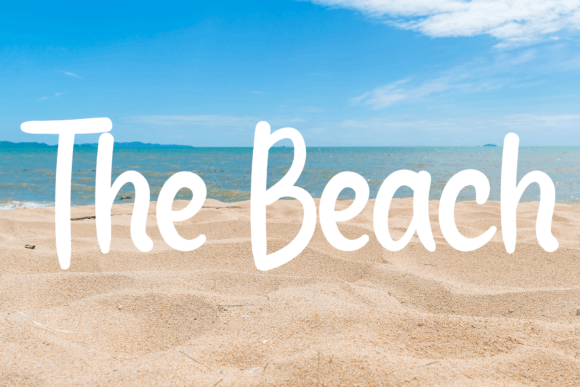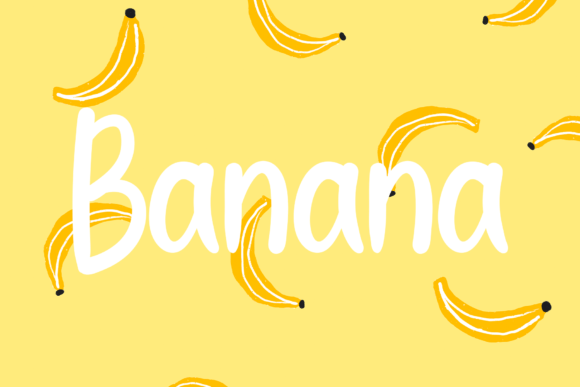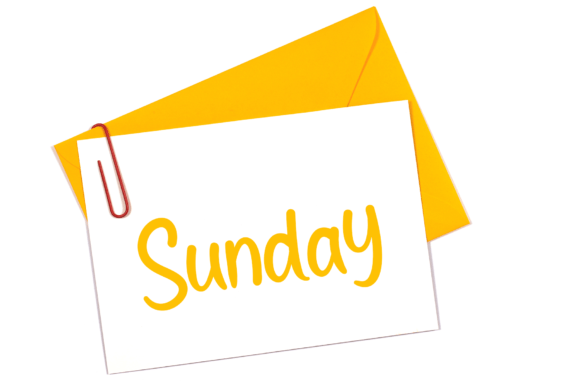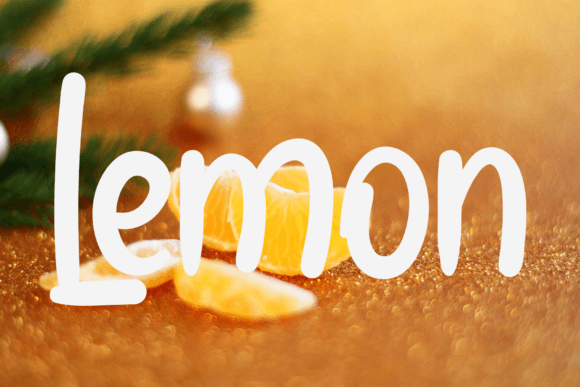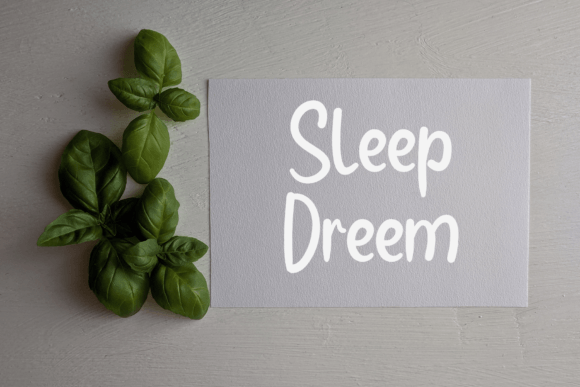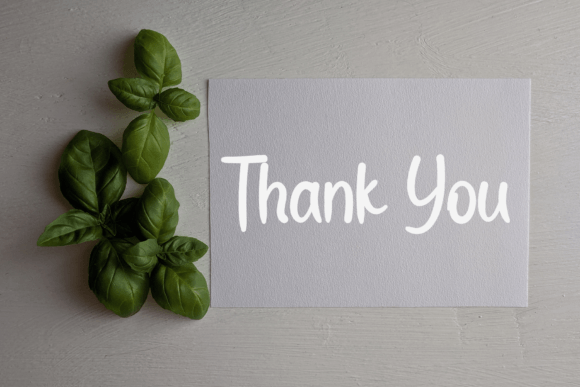
Blue Font
About Blue Font
Blue font is a simple and friendly handwritten typeface designed with warmth and versatility in mind. Whether you are working on crafts, digital designs, presentations, or greeting cards, this font brings a charming and approachable feel to your projects. Its clean and casual style makes it a reliable choice for a wide variety of creative needs.
Friendly and Approachable Style
Blue font stands out with its inviting, human touch. The handwritten style creates a natural and genuine impression that connects with audiences effortlessly. It is neither too formal nor overly casual, striking the perfect balance for everyday creative use. The friendly curves and smooth strokes ensure that each letter is clear and readable, even at smaller sizes.
Versatility Across Projects
This font shines in multiple contexts. Use it for craft projects where a personal touch matters. It works wonderfully in digital design, adding authenticity and warmth to websites, social media posts, and marketing materials. For presentations, Blue font keeps your slides engaging while maintaining professionalism. Plus, it’s perfect for greeting cards—whether you want to convey cheerfulness, sincerity, or celebration.
Why Choose Blue Font?
Choosing Blue font means you get a versatile and dependable font that suits both casual and semi-formal designs. Its simplicity ensures your message stays clear, while its handwritten charm adds personality. The font’s balanced letterforms make it an excellent option for both print and digital work.
Key Features of Blue Font
• Simple, clean, and friendly handwritten style
• Highly legible, suitable for various design sizes
• Perfect for crafts, presentations, digital design, and greeting cards
• Adds warmth and a personal touch to your projects
• Versatile and suitable for both casual and semi-formal contexts
How to Use Blue Font Effectively
Incorporate Blue font into your designs whenever you want to add a natural and inviting feel. Pair it with clean sans-serif fonts for balance in branding materials or combine it with playful graphics in children’s projects. Its legibility also makes it great for body text in informal communications.
In summary, Blue font is an accessible and friendly handwritten font that enhances your creative projects with its simple yet charming style. Whether you’re crafting, designing digitally, or preparing presentations and greeting cards, Blue font is a fantastic choice that will become your favorite go-to font. Try it today and watch your designs come to life with warmth and personality.